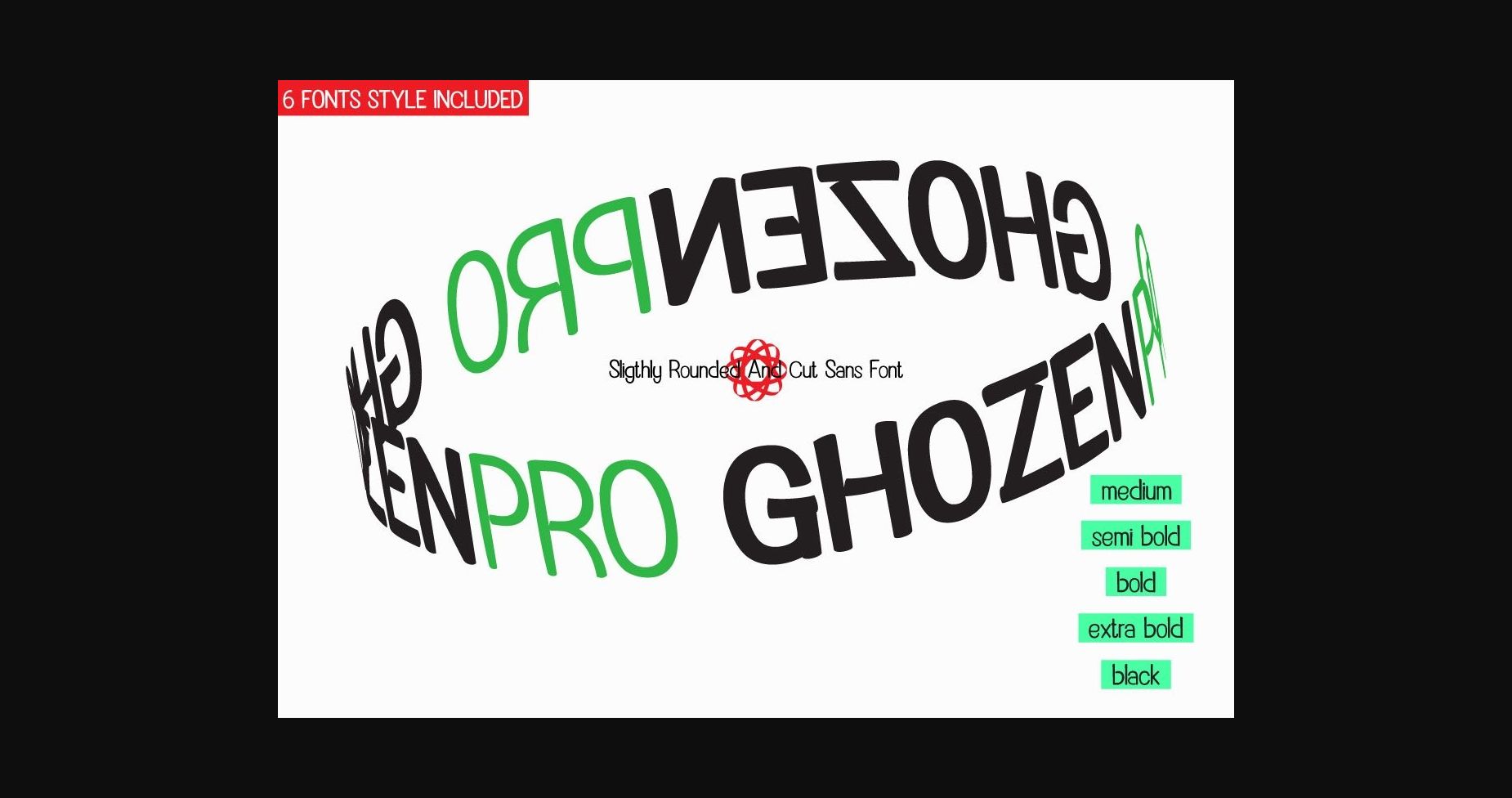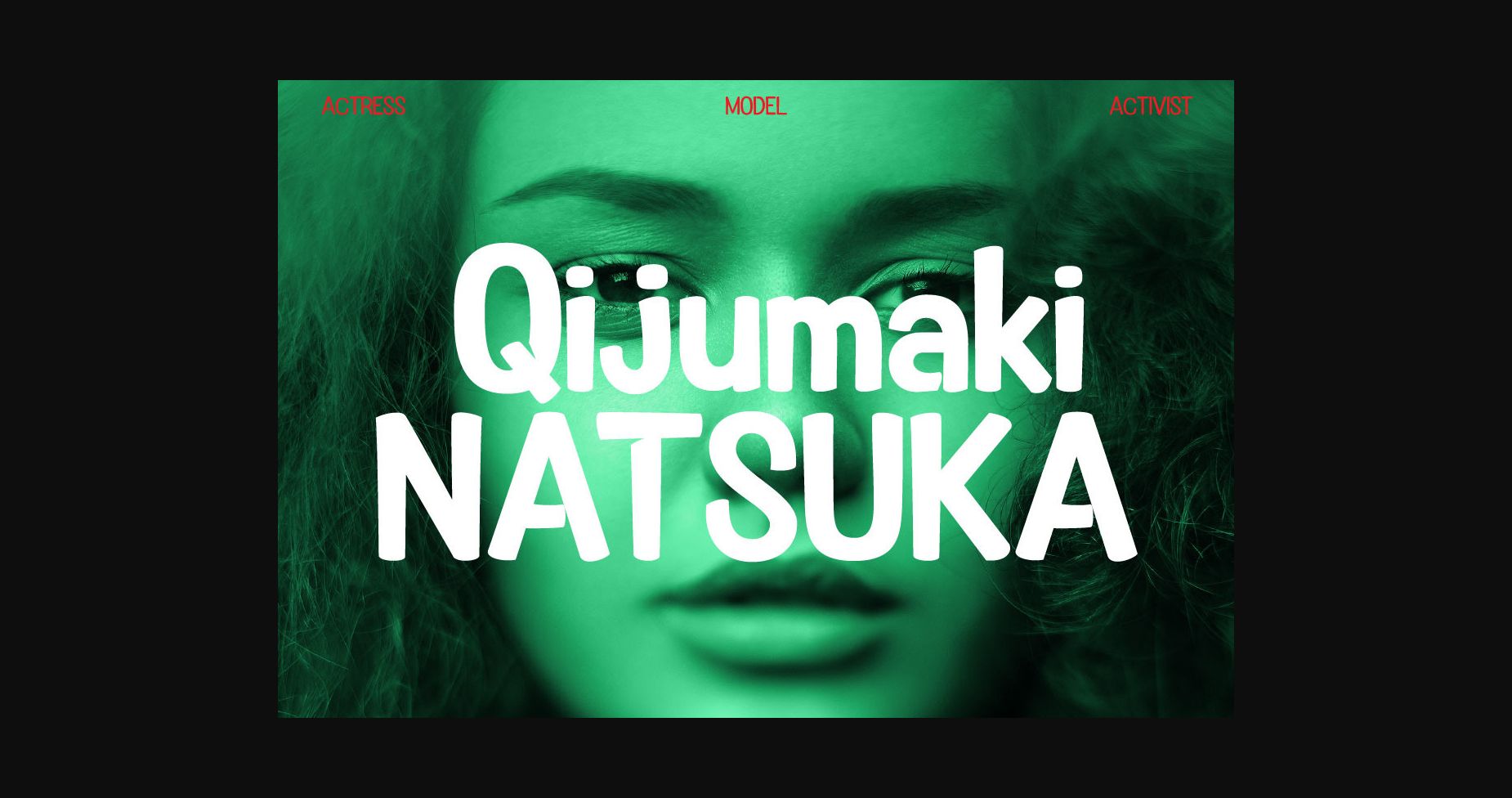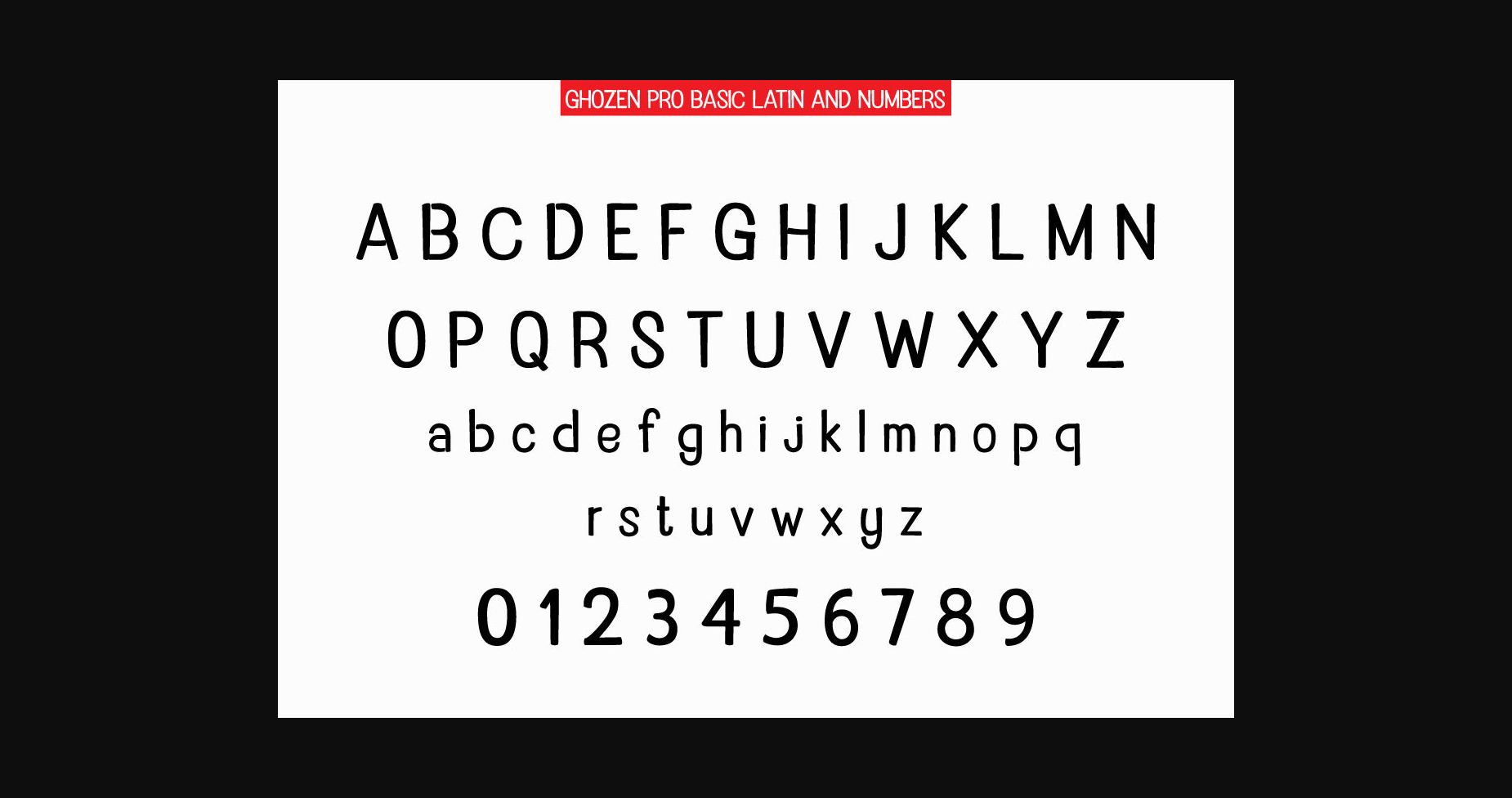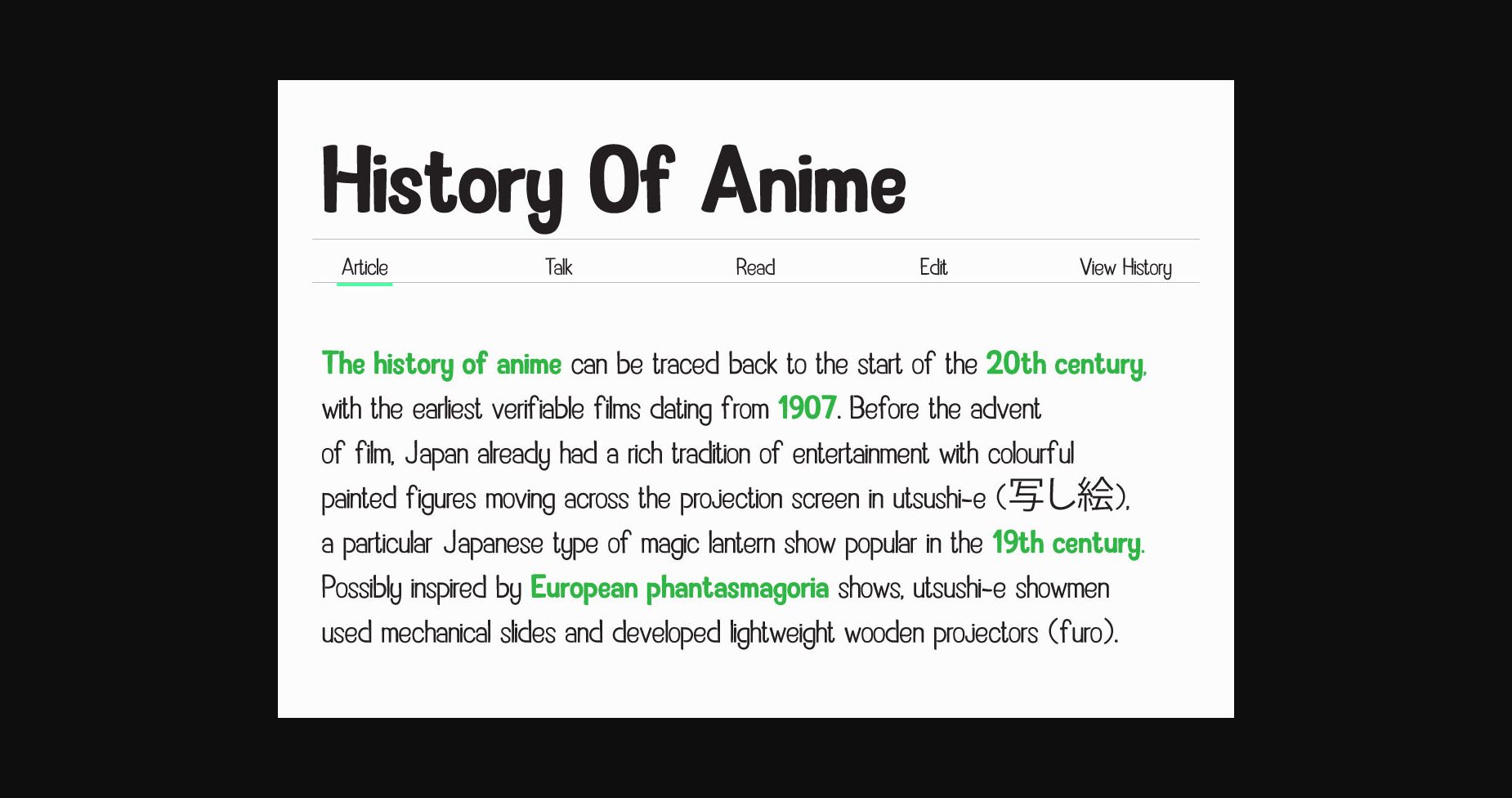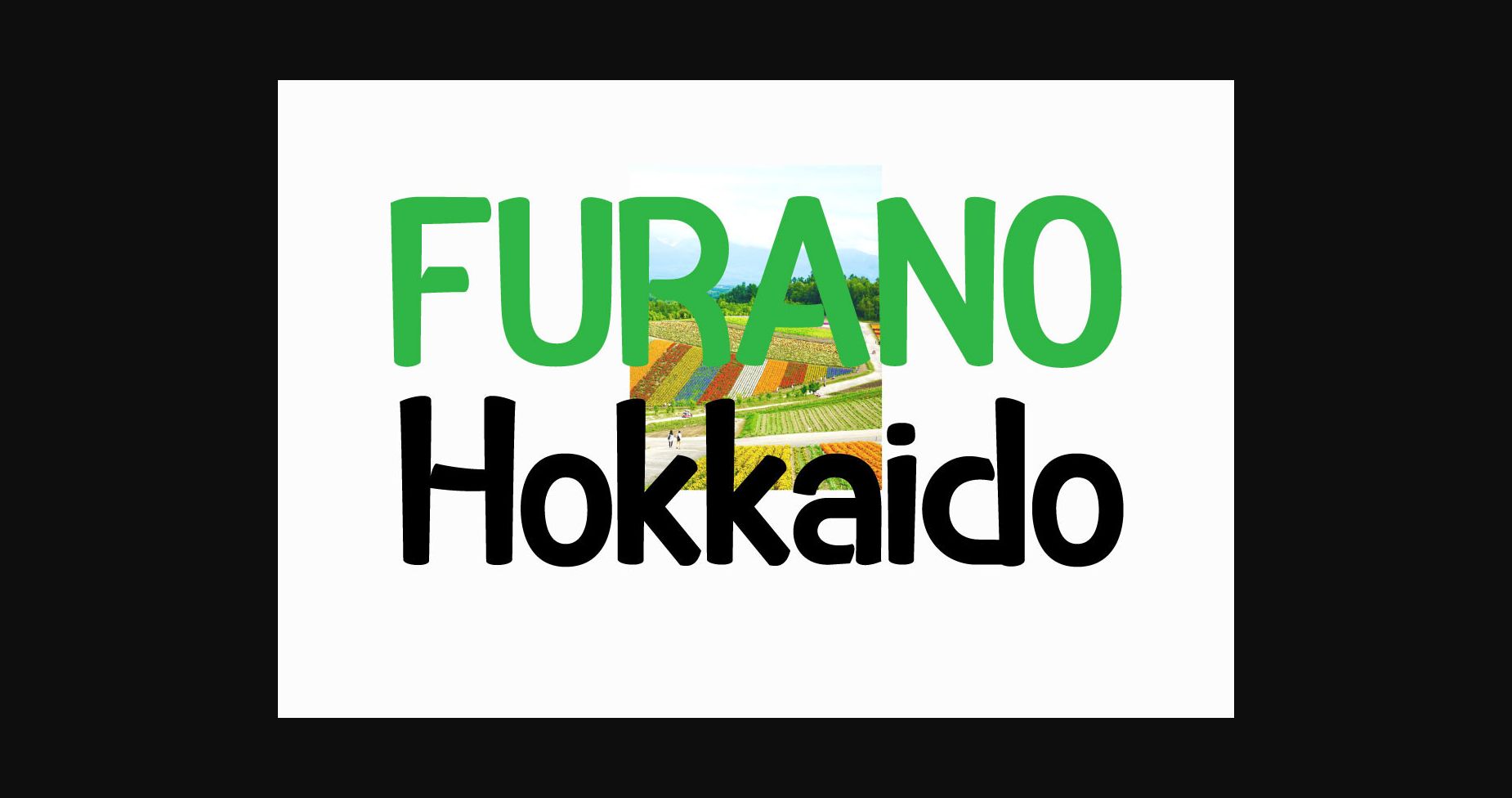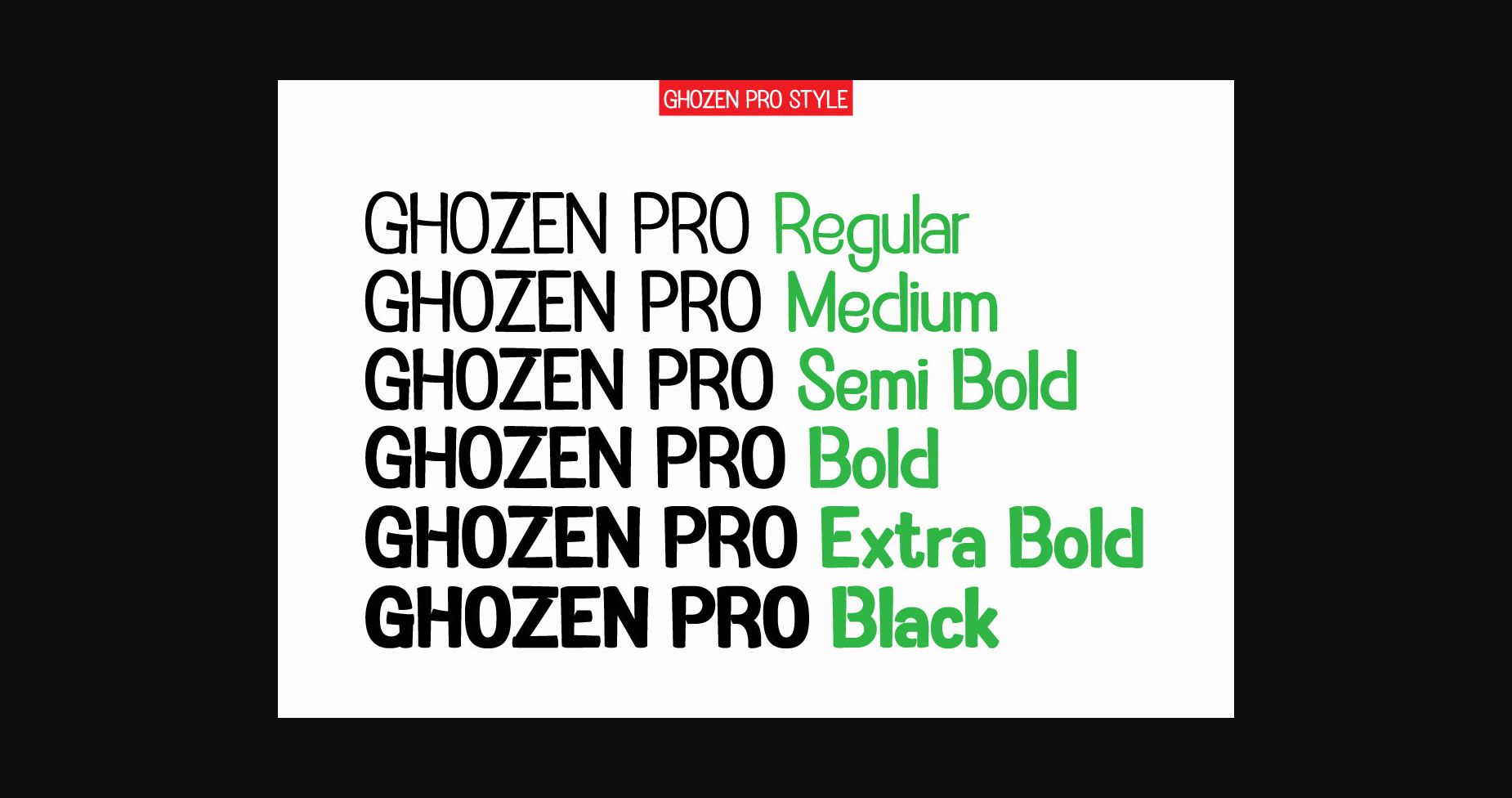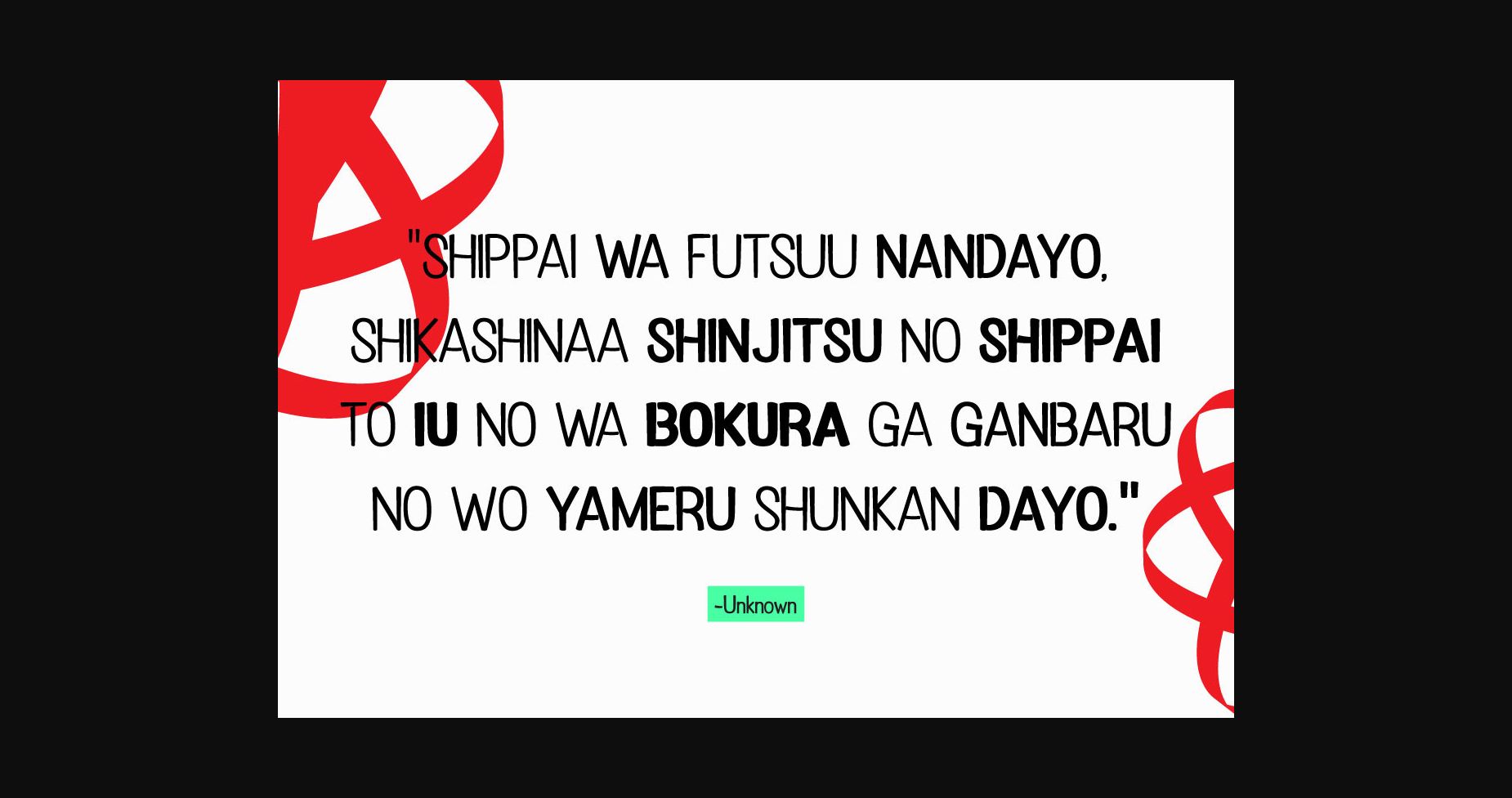
Ghozen Pro Font
About Ghozen Pro Font
Ghozen Pro is a neat and professional-looking sans serif font. Incredibly versatile, this typeface will look great in a wide variety of contexts.